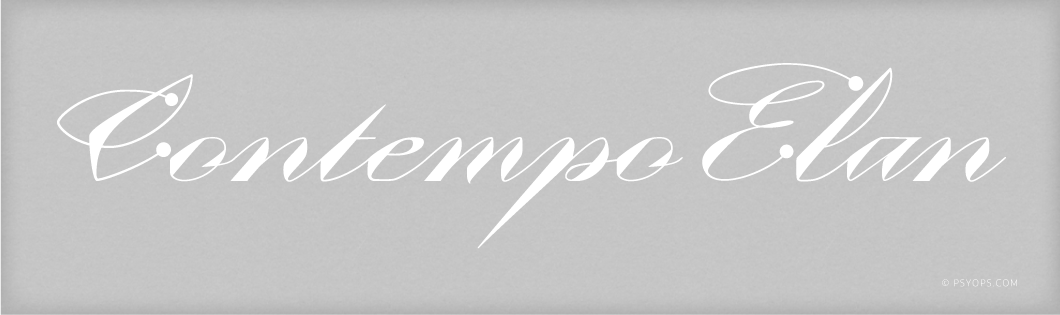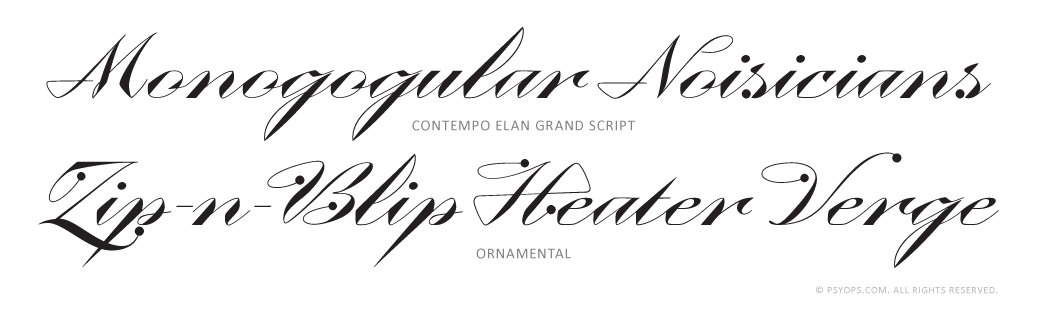
Contempo Élan Grand Script is Wesley Poole’s unique and supremely mid mod alternative to more staid and traditional scripts. The super-angular Premier harkens back to Il Futurismo, while the Ornamental Script jets forward to the Space Age at mach speed, with decor worthy of Sputnik or a Calder mobile. :: Working from Poole’s inked masters, PSY/OPS designers Jana Flynn and RXC drafted the design to point-perfect standards over the course of a year, balancing the letterforms and establishing the script-linking mechanism where no margin of error exists. :: Take a closer look and discover why early reviews have hailed this daring as “remarkable” and “a master-work!”
The Contempo Elan fonts include: Western and Eastern European characters, Stylistic Alternates, ligatures, and more.